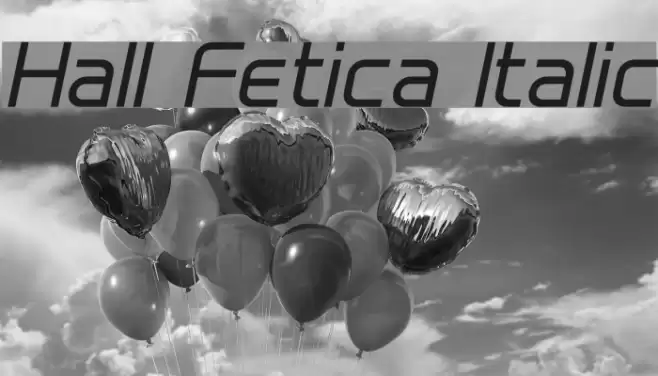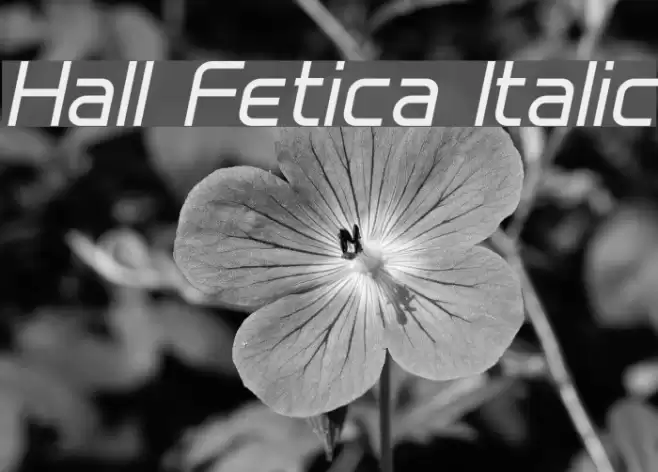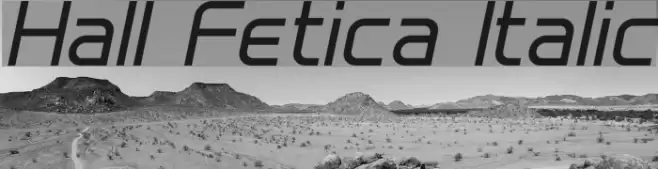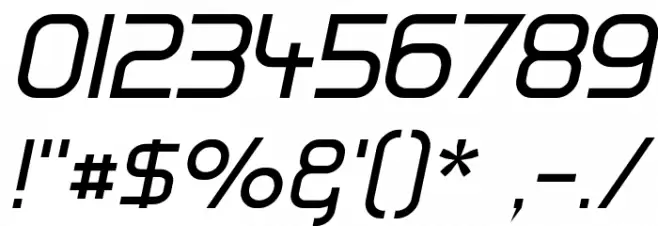
Hall Fetica Italic Font
Hall Fetica Italic Description
This font features a sleek, modern design with a slight italic slant, giving it a dynamic and forward-moving appearance. The characters are clean and geometric, with consistent stroke widths that provide a uniform look. The uppercase letters are tall and slightly condensed, while the lowercase letters maintain a balanced proportion, ensuring readability. The numerals are distinct and align well with the overall style, making them suitable for various applications. The special characters are designed to complement the alphabet, maintaining the font's cohesive aesthetic.
A sleek, modern italic font with geometric shapes and consistent stroke widths from Uncategorized fonts.
- Proposed Projects: Ideal for technology branding, modern advertising, and sleek editorial design.
- Width: Condensed
- Use Case: Headlines, Logos, Branding